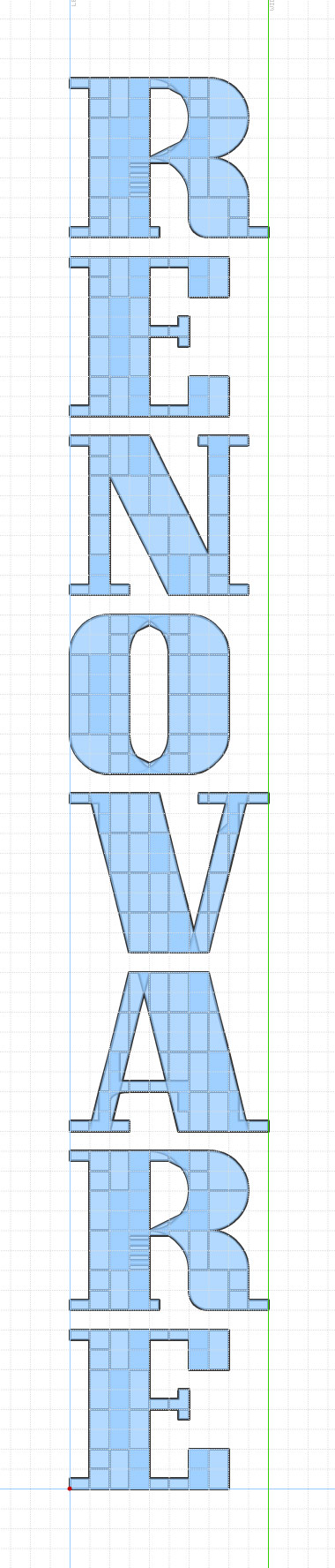
Renovare. from the Latin word meaning "to renew" or "to restore."
Representing FontStruct's renewal with its new feature upgrades. This serif font was created solely for the purpose of exercising the new brick stacking and composite brick building features. WIP. Just letterforms for now. Looks simple, but internally gets complex with a quickness.
I'm just getting to grips with the composite stuff. It's a bit of a headache to work out ALL the possibilities, but it's exciting as its a whole new world waiting to be discovered.
It may only be an exercise to you Gene, but it looks so good and will spur us all on :)
@neurone error. Yes, a part of me thinks there will always be some impossible curves but seeking the impossible is usually a good starting point for me. This design was purposely fontstructed to explore creative usage of brick stacking and compositing, and the identification of limitations naturally is a part of that. Specifically, the size of the serifs dictated the shapes of the rest of the letterforms. Much of the structures are workarounds that will be resolved with the addition of the magical "blank" brick which will enable further compositing functionality. The thinness of the serifs forced me to manipulate certain bricks to simulate natural curves. This can be seen when zooming in to view the internal curves on rounded characters. Can I modify this design to look better by efficiently using the new features? Sure. Hold on for S2.
@djnippa. It's best not to try to work out all of the overwhelming possibilities. If you stick with a specific design in mind, then you can create the possibilities out of necessity. And this is just the tip of the iceberg. Renovare S1 is just an example of working with smaller scale fontstructions to maximize the curvy bricks. Lots more can be done in larger scales. FYI, While starting out with compositing, I'd recommend not changing the filter settings unless you know what you're getting into. It can quickly get ridiculous if things aren't planned out in advanced.
@Frodo7. The complexity of creating this font is multiplied due to working with double filters. But the 2:2 workspace is the only one that will enable the necessary angles to complete all of the characters - until the blank brick is released. In the standard 1:1 setting, the steeper curves on the A and V can't be created through compositing without the blank brick. But be warned, when compositing with upscaled bricks, it's almost like compositing blind, and it is easy to be confused when you don't get what you planned to composite. Usually I try to build with minimal brick wastage, but I liked the way the font looked in outline mode so I left all the experimental bricks in the sample. "Problem solving, experimenting, trial and error method, patience, and stamina" -Bullseye, Frodo!
@meek: Certain composite bricks have turned into blank spaces, even in the brick bin! I didn't really change anything since downloading, and the exported TTF looks fine, so I don't know what happened...
Some of the bricks just broke in your font...
Your font looks kinda broken now; how are you going to fix it?!